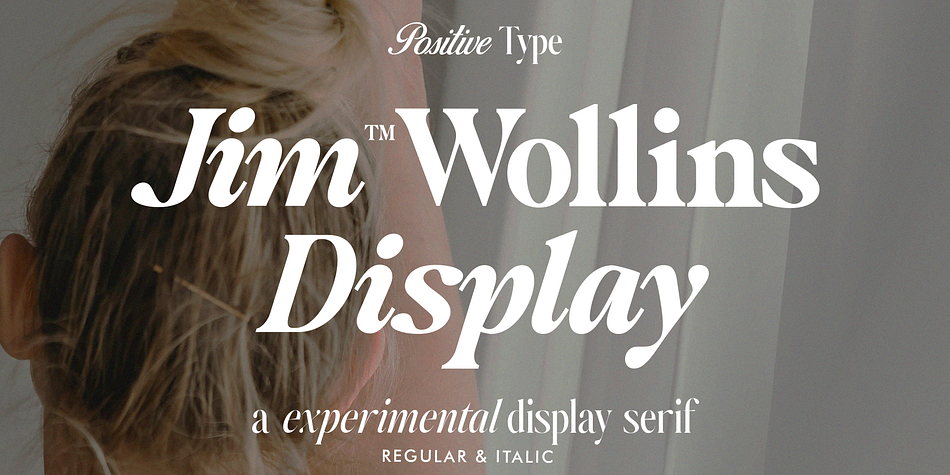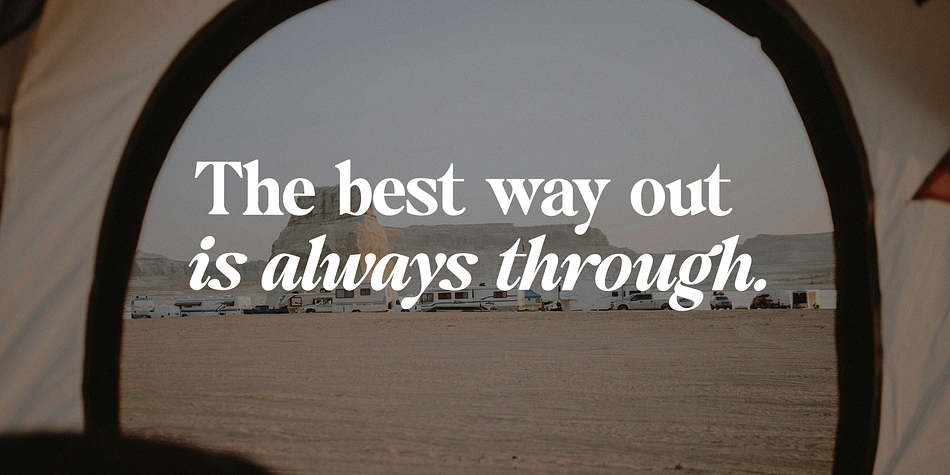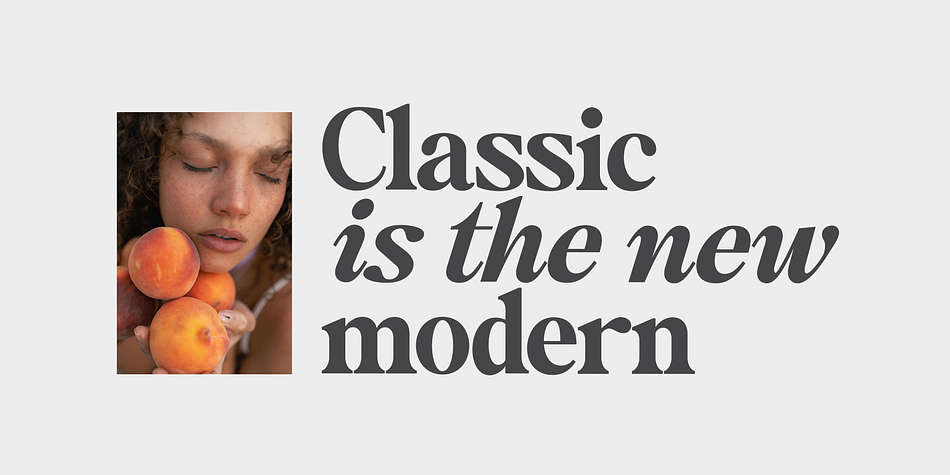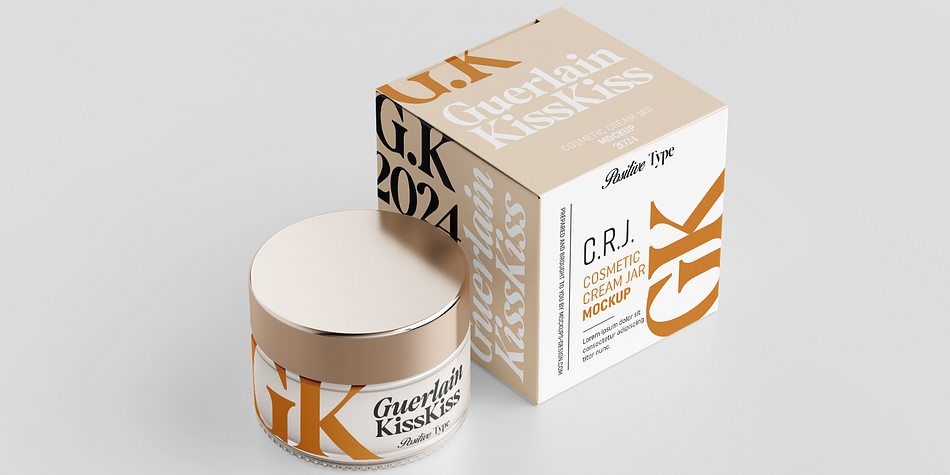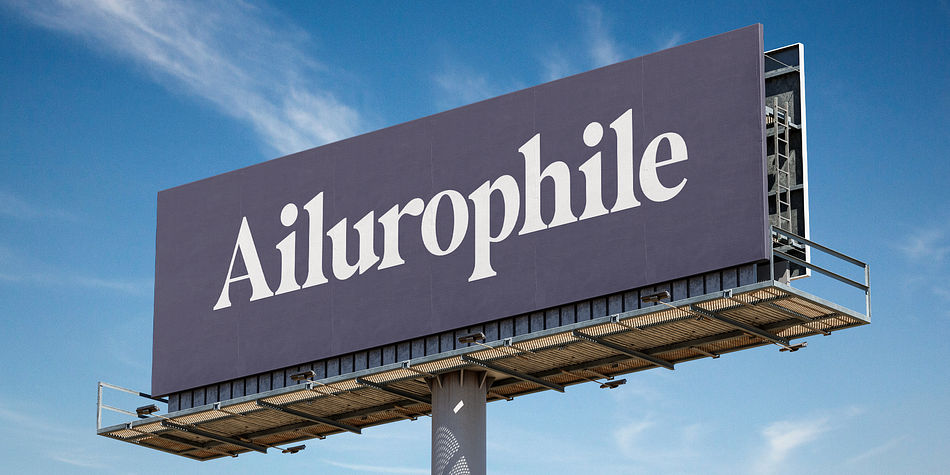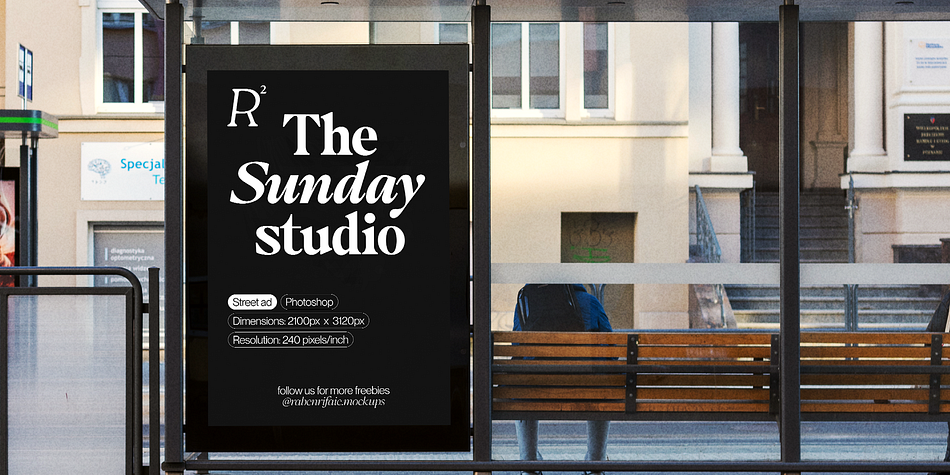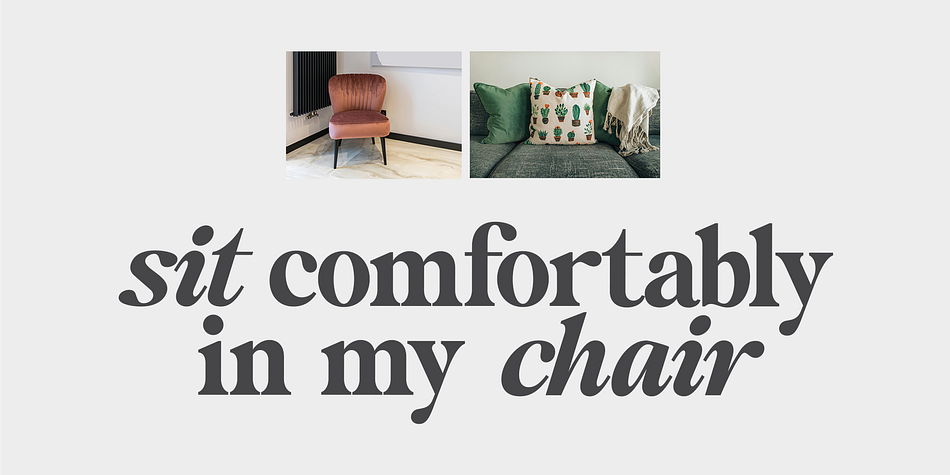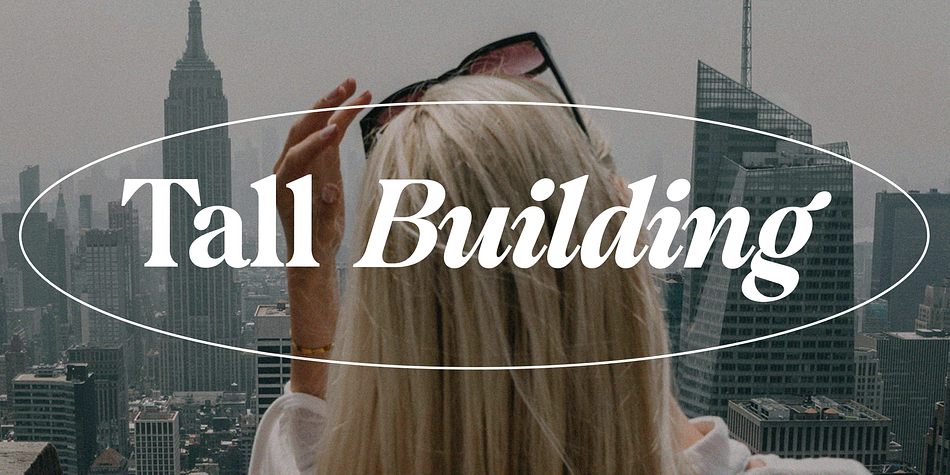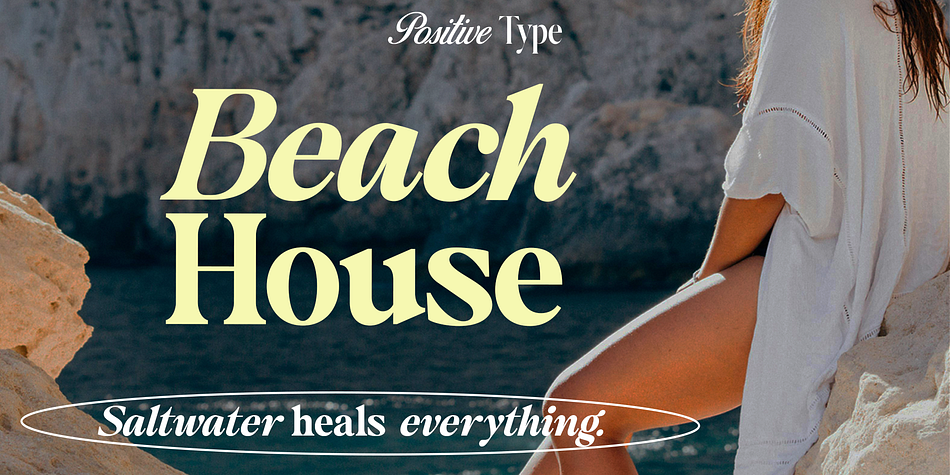
Jim Wollins
Jim Wollins is a display serif font family. This typeface has two styles and was published by Positive TypeFoundry.
Introducing Jim Wollins, a stunning typeface that combines the characteristics of a sleek and exotic beautifully crafted serif font, making it an ideal choice for creating elegant and sophisticated designs.
Jim Wollins is a stylish font. This font has a modern and playful look. Helps create layout designs in 60s or 70s design projects.
Jim Wollins font is an elegant Regular and Italic display serif typeface with fine details. This neat font can contribute to a modern and fashionable brand appeal.